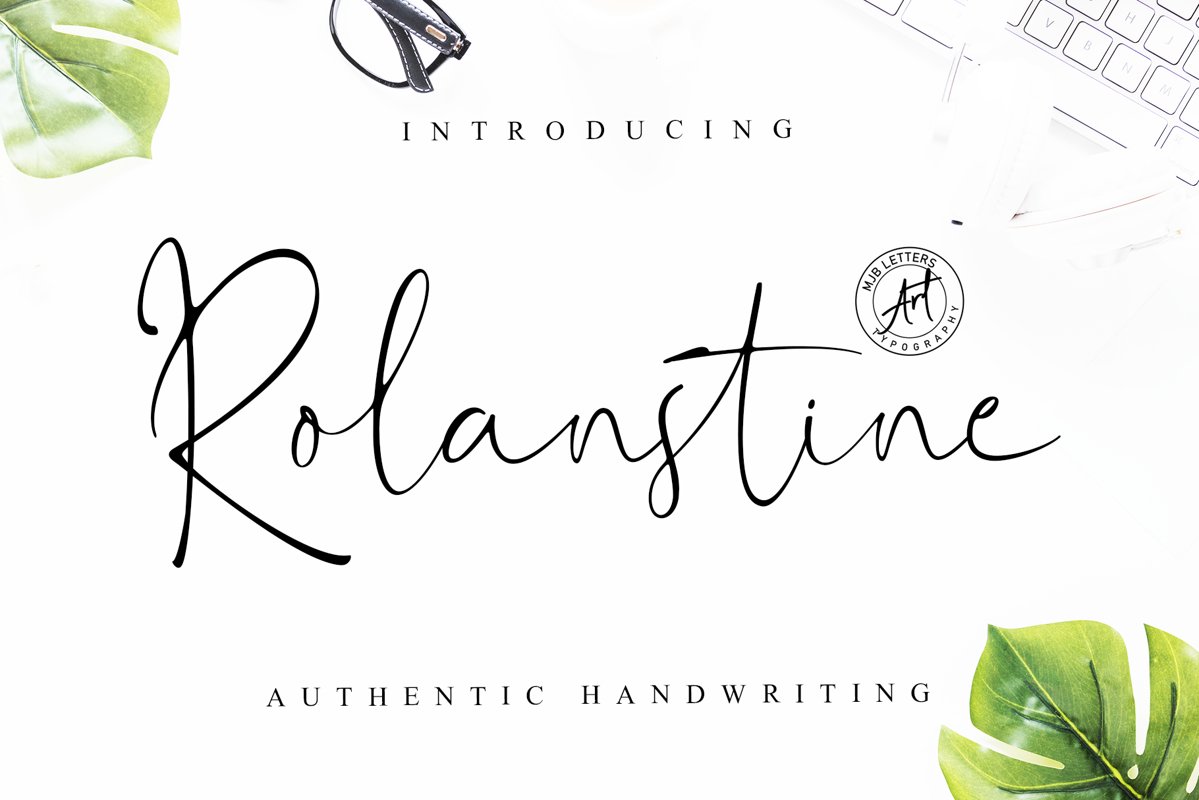
Rolanstine Authentic Signature
Rolanstine is an authentic handwritten font, with the strength of character in each letter so it is suitable for logos, signatures, branding designs, watermarks, posters, wedding designs and many more.